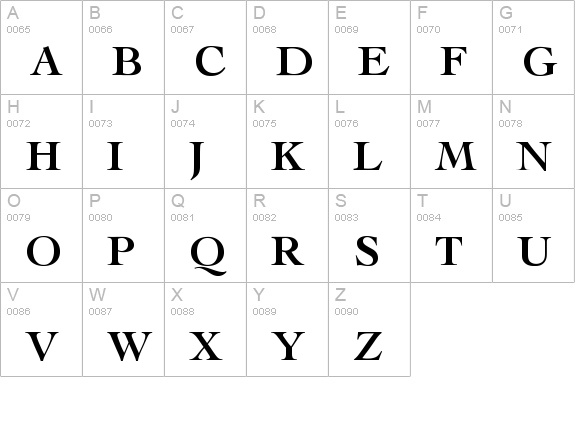
Le Cochin Medium is a balanced, medium-weight variant in the Le typeface family \xE2\x80\x94 well suited to sub-headlines, navigation, and balanced editorial work.
Le Cochin Medium font is a stylish and elegant typeface that embodies the perfect balance between classic sophistication and modern simplicity. With its refined curves and clean lines, this font exudes a sense of timeless beauty that is sure to elevate any design project. What sets Le Cochin Medium font apart is its versatility. It can effortlessly complement both traditional and contemporary designs, making it suitable for a wide range of applications. Whether you are working on a luxury branding project, a fashion editorial, or a wedding invitation, this font will add a touch of class and refinement to your design. One of the standout features of Le Cochin Medium font is its legibility. The carefully crafted letterforms ensure that every character is easy to read, even at smaller sizes. This makes it an excellent choice for body text, headings, and captions alike. Moreover, what makes Le Cochin Medium font even more appealing is that it is available for free download at FontsMarket.com. This means that you can enjoy all the benefits of this exquisite font without having to spend a dime. Simply visit FontsMarket.com, find the Le Cochin Medium font, and click the download button to add this elegant typeface to your collection. In conclusion, Le Cochin Medium font is a delightful combination of classic charm and contemporary design. Its versatility, legibility, and free availability make it a must-have font for designers and creatives looking to add a touch of elegance to their projects. So why wait? Download Le Cochin Medium font today and unlock the potential of your designs.